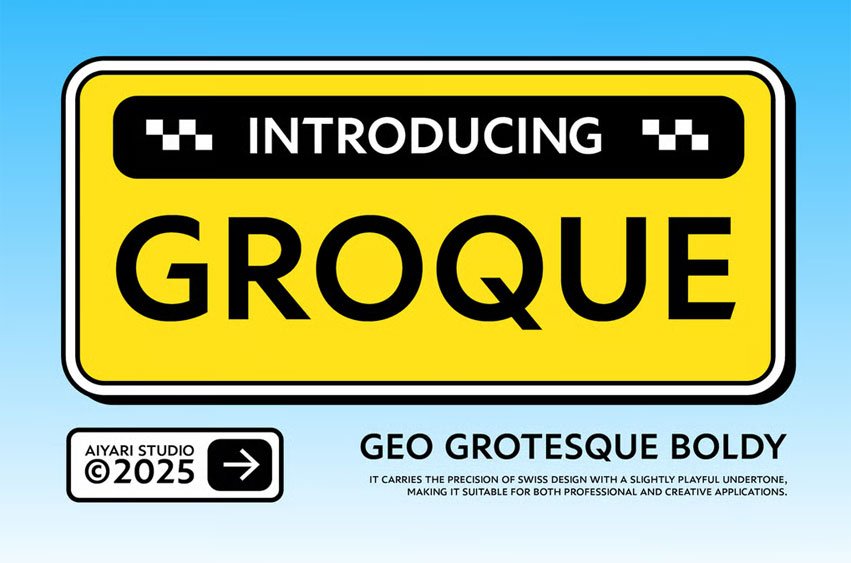
Groque Font is a bold geometric grotesk that blends clean construction with subtle personality. Its round counters and sharp terminals create a modern rhythm that feels both structured and approachable.
With confident letterforms and a versatile design, Groque is ideal for branding, editorial headlines, tech interfaces, posters, and modern packaging. It carries the precision of Swiss design with a slightly playful undertone, making it suitable for both professional and creative applications. Groque is your go-to when clarity needs character.